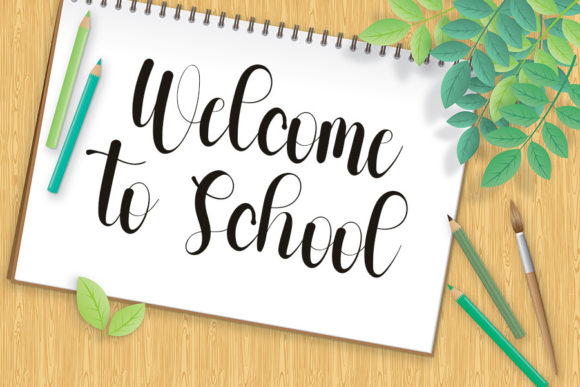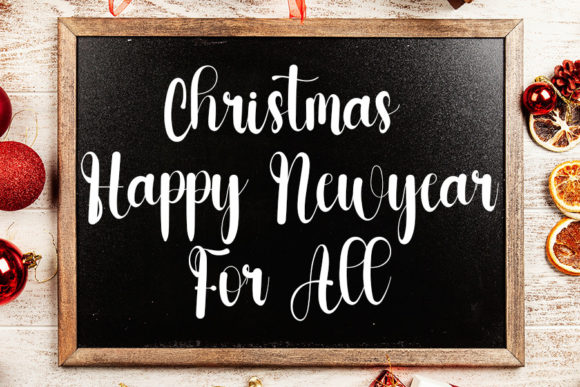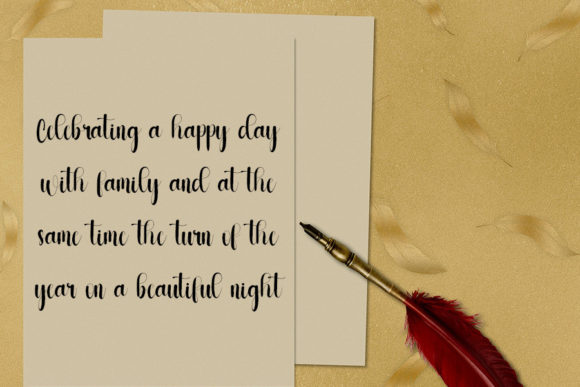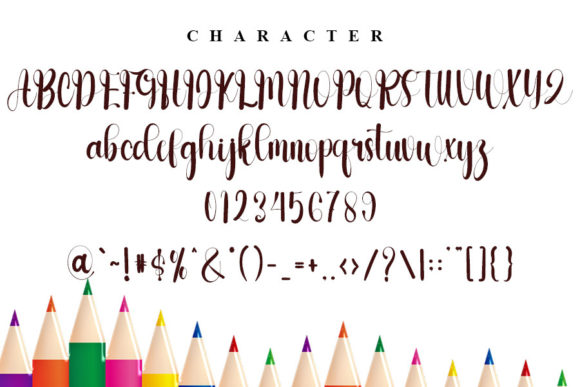
Introducing Autologicals Font: The Ultimate Choice for Designers and Crafters
Are you tired of using the same old fonts in your designs? Look no further! Autologicals Font is here to revolutionize your creative projects with its cool, casual, and relaxed handwritten style. This whimsical and quirky font is perfect for designers and crafters who want to add a touch of personality to their work.
What Makes Autologicals Font So Special?
Autologicals Font is a unique and eye-catching font that stands out from the crowd. Its handwritten style gives it a personal and friendly feel, making it perfect for a wide range of design projects, from branding and advertising to packaging and crafts. The font’s casual and relaxed vibe makes it ideal for creating a laid-back and approachable atmosphere in your designs.
Key Features of Autologicals Font
- Handwritten style: Autologicals Font has a beautiful, handwritten style that adds a touch of warmth and personality to your designs.
- Cool and casual: The font’s cool and casual vibe makes it perfect for creating relaxed and approachable designs.
- Whimsical and quirky: Autologicals Font has a playful and quirky feel that will add a touch of fun and creativity to your designs.
- Easy to read: Despite its casual style, Autologicals Font is easy to read and understand, making it perfect for body text and headings.
Uses for Autologicals Font
Autologicals Font is a versatile font that can be used in a wide range of design projects, including:
- Branding and advertising: Use Autologicals Font to create eye-catching logos, posters, and advertisements that stand out from the crowd.
- Packaging design: Add a touch of personality to your product packaging with Autologicals Font.
- Crafts and DIY projects: Autologicals Font is perfect for crafters and DIY enthusiasts who want to add a personal touch to their projects.
- Digital design: Use Autologicals Font in your digital designs, such as social media graphics, blog posts, and website headers.
Why Designers and Crafters Love Autologicals Font
Designers and crafters love Autologicals Font for its unique and creative style. The font’s handwritten style and whimsical feel make it perfect for adding a touch of personality to designs. Plus, its ease of use and versatility make it a great choice for a wide range of projects.
Tips for Using Autologicals Font
- Pair it with other fonts: Autologicals Font pairs well with other fonts, such as sans-serif fonts and script fonts.
- Experiment with colors: Try out different colors and color combinations to add depth and interest to your designs.
- Use it for headings and body text: Autologicals Font is easy to read and understand, making it perfect for both headings and body text.
Autologicals Font is a unique and creative font that is perfect for designers and crafters who want to add a touch of personality to their designs. With its cool, casual, and relaxed handwritten style, Autologicals Font is sure to brighten up each of your designs. Try it out today and see the difference it can make!